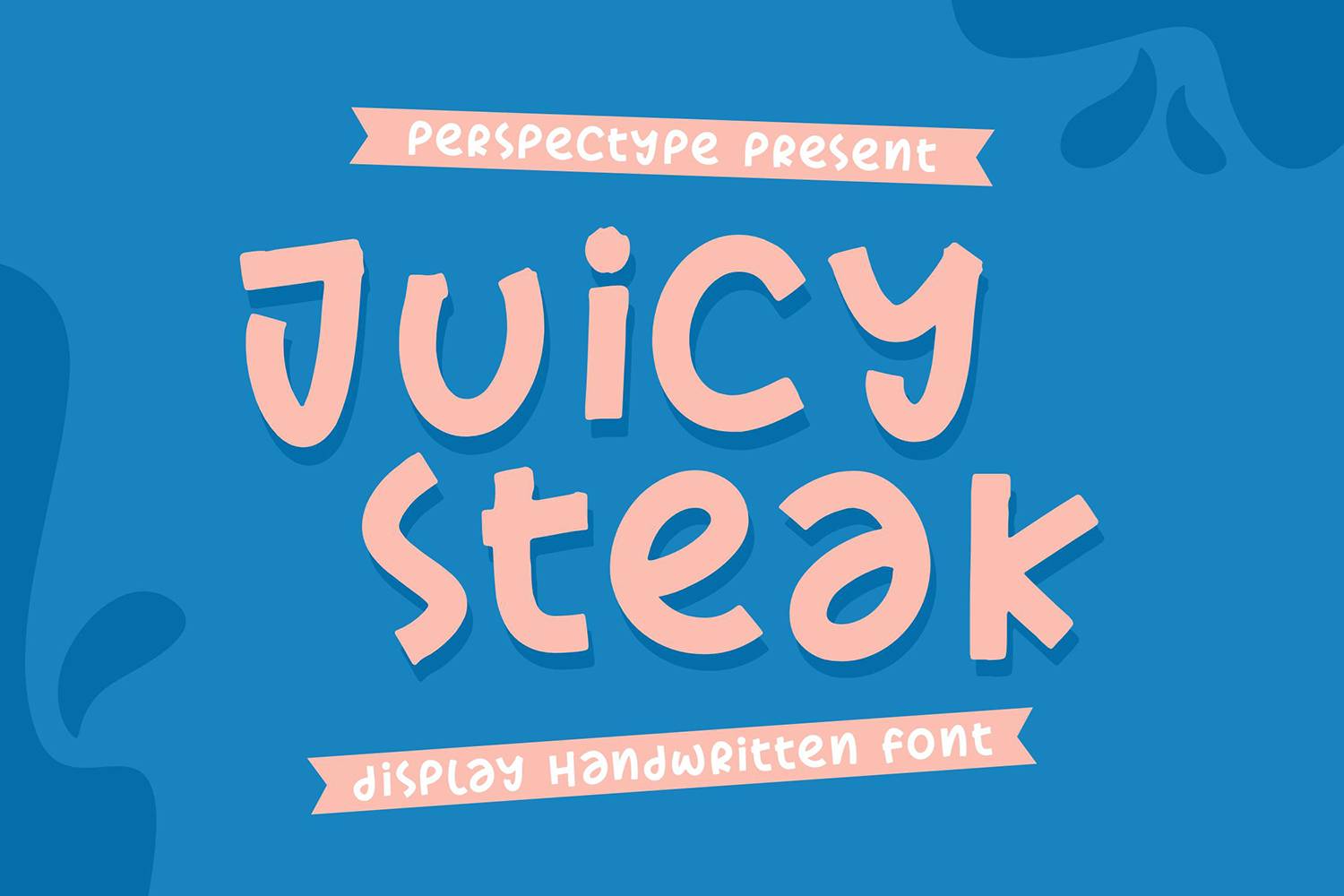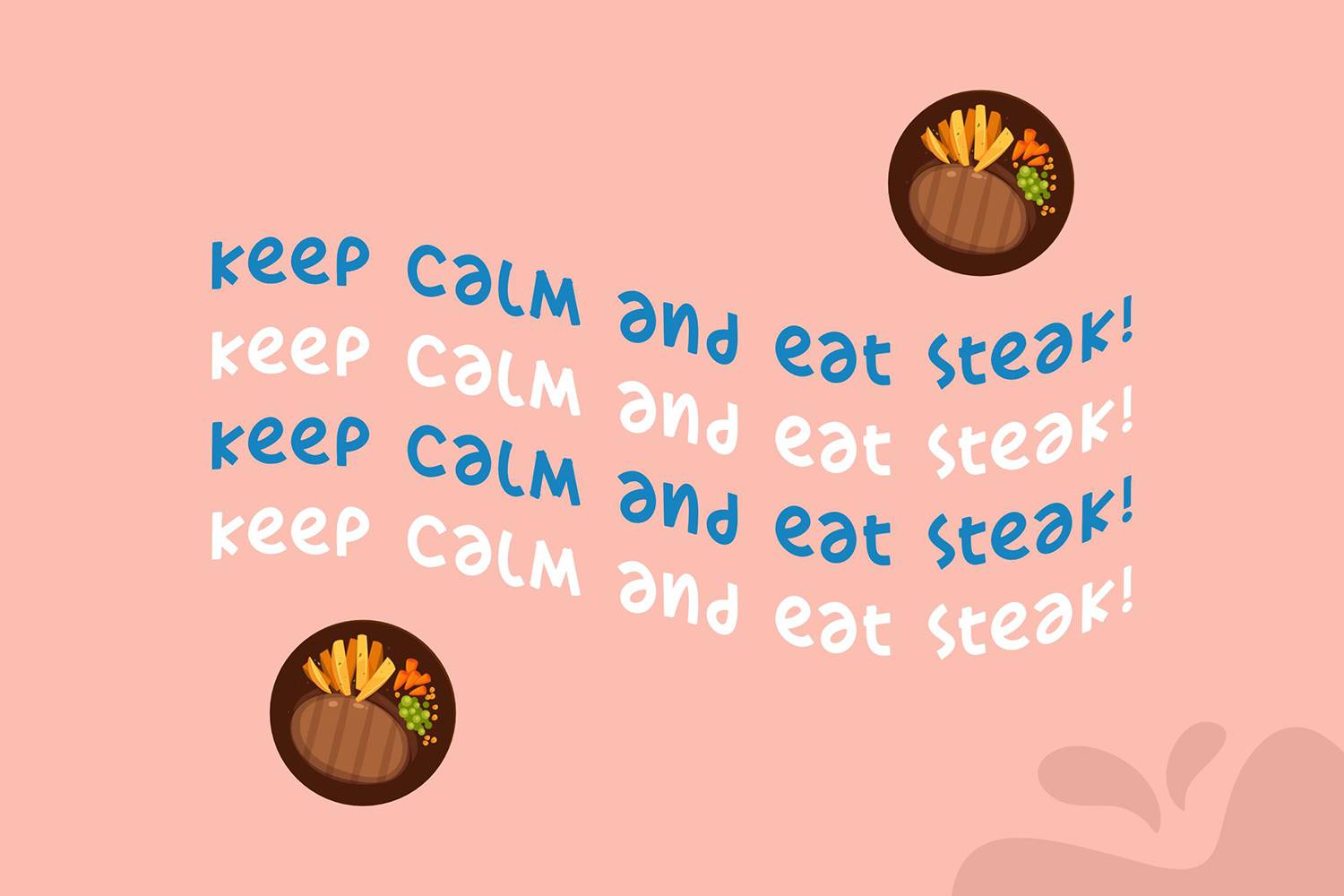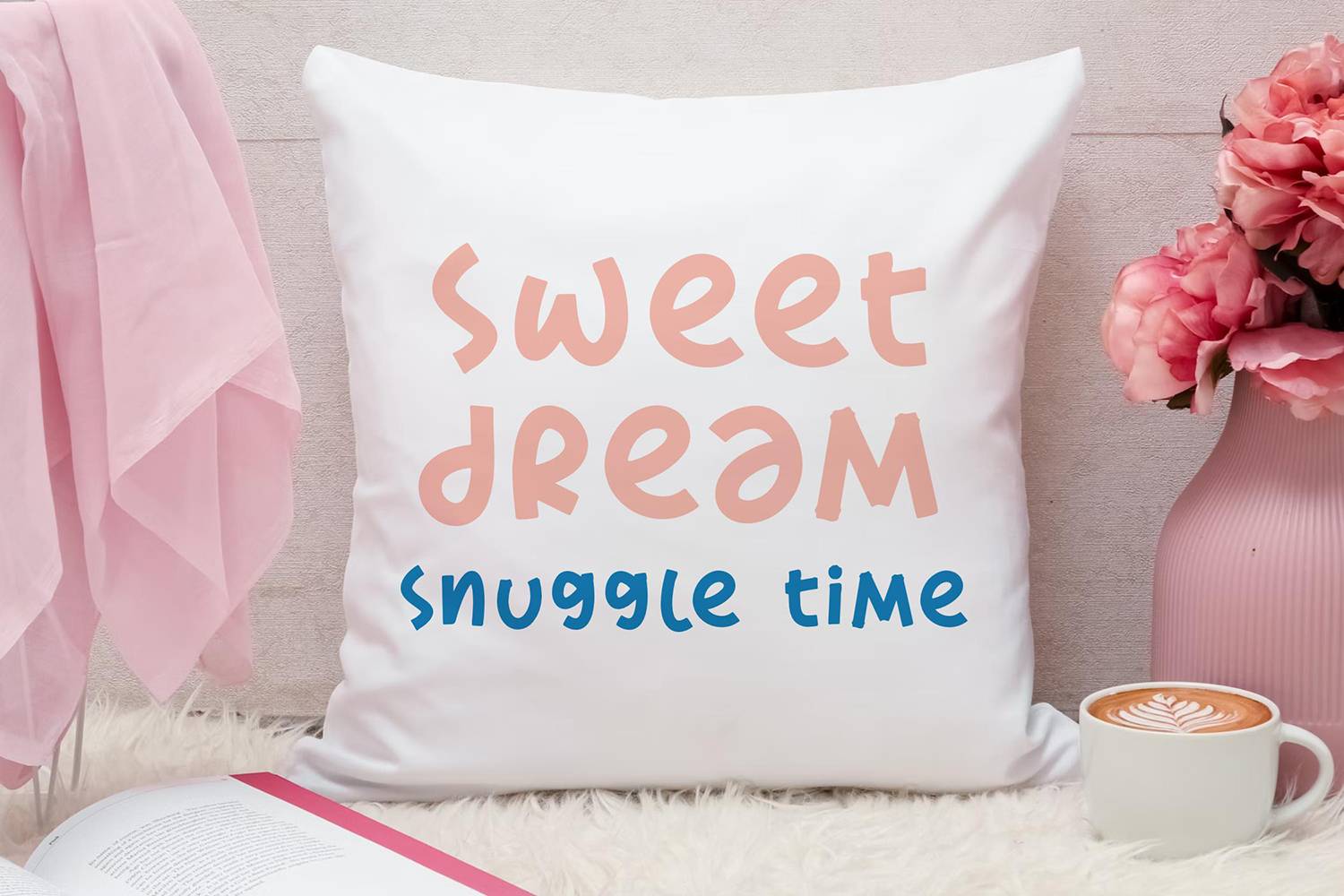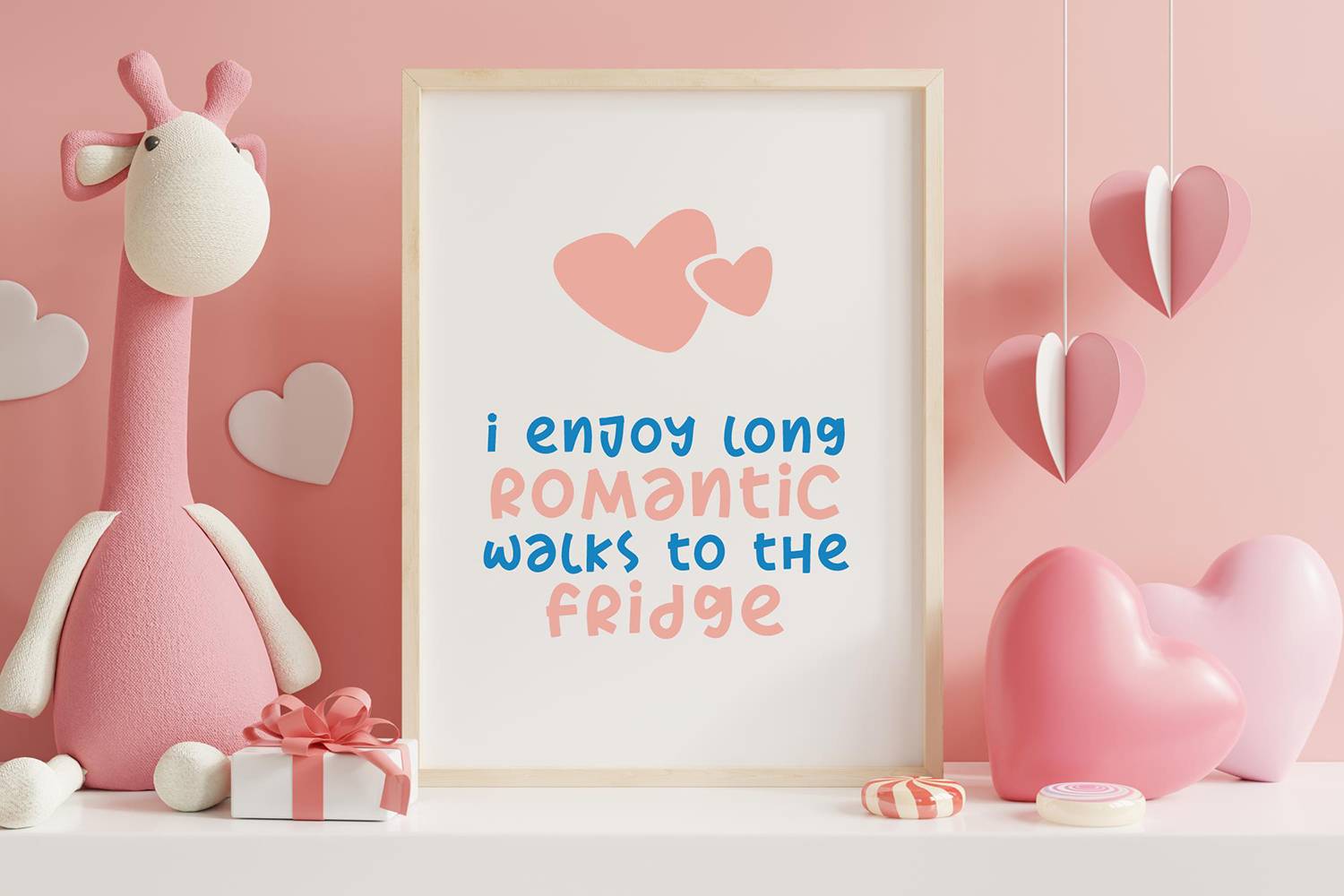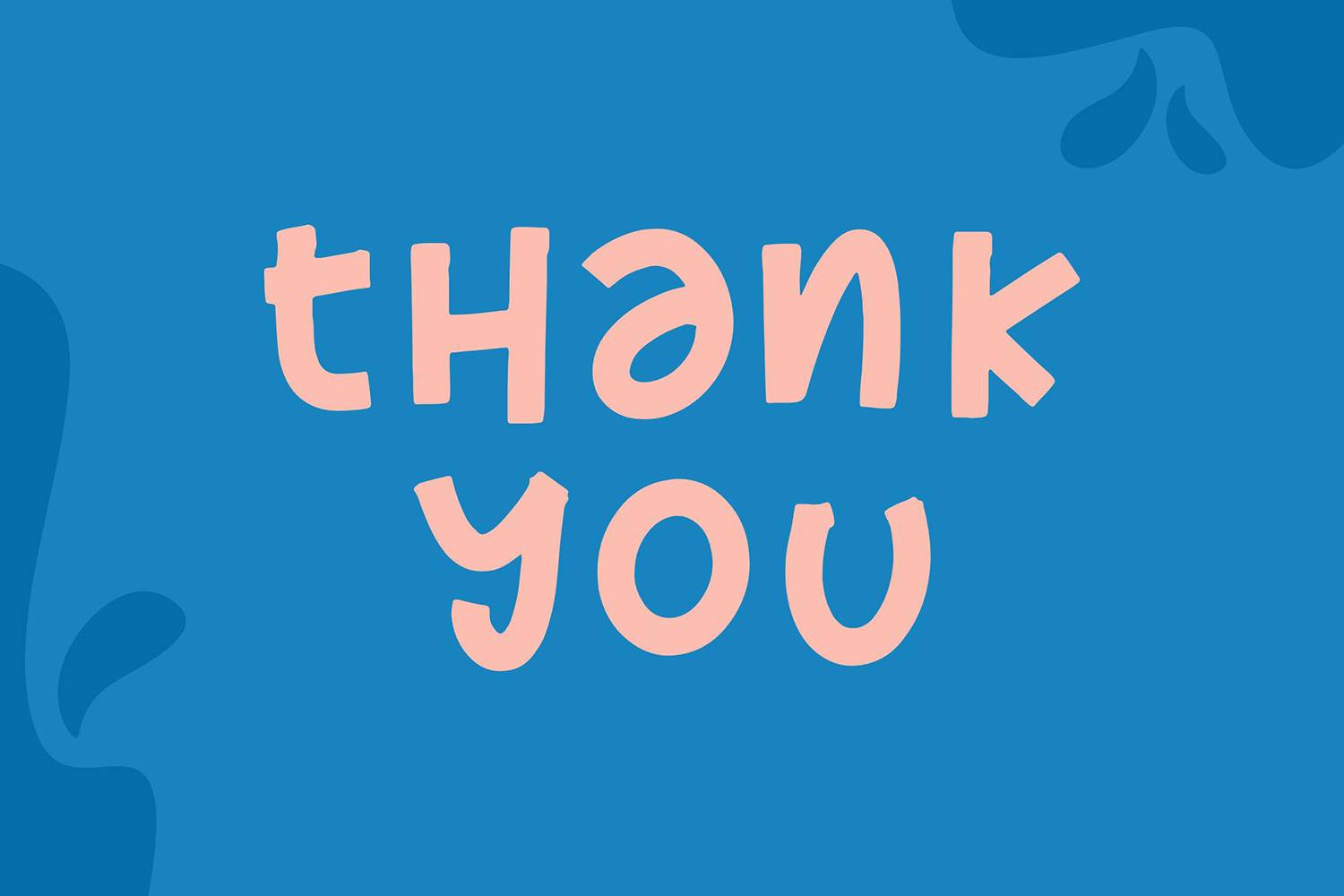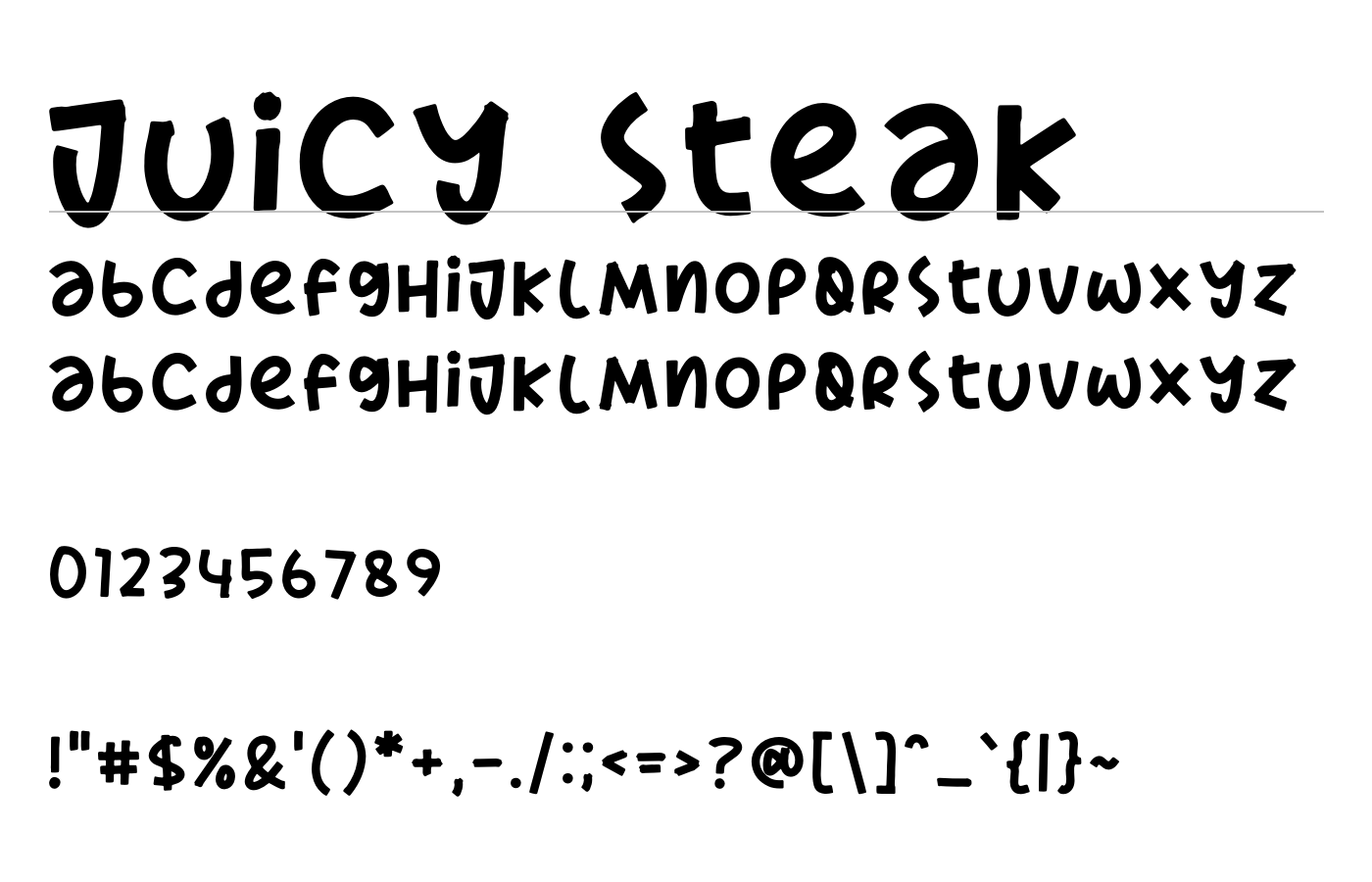
Juicy Steak is a playful, casual sans serif font with a hand-drawn, slightly irregular style that gives it a friendly and approachable feel. Its bold weight and rounded, chunky letterforms make it perfect for fun, informal uses such as branding for food products, children’s materials, or creative packaging. This font works well in headlines and logos where a whimsical, energetic vibe is desired.
Juicy Steak Font